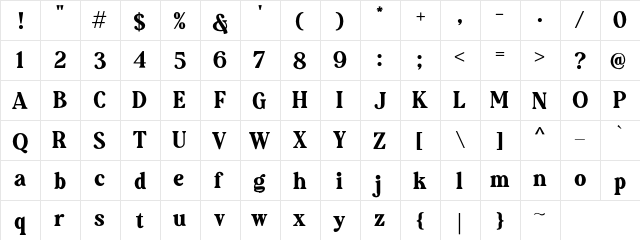
Augillion DEMO Regular
| Foundry | Sarid Ezra |
| Designer | Sarid Ezra |
Design Context for Augillion DEMO Typeface
Augillion DEMO is a composed and adaptable typeface that performs quietly and consistently across a wide range of design contexts.